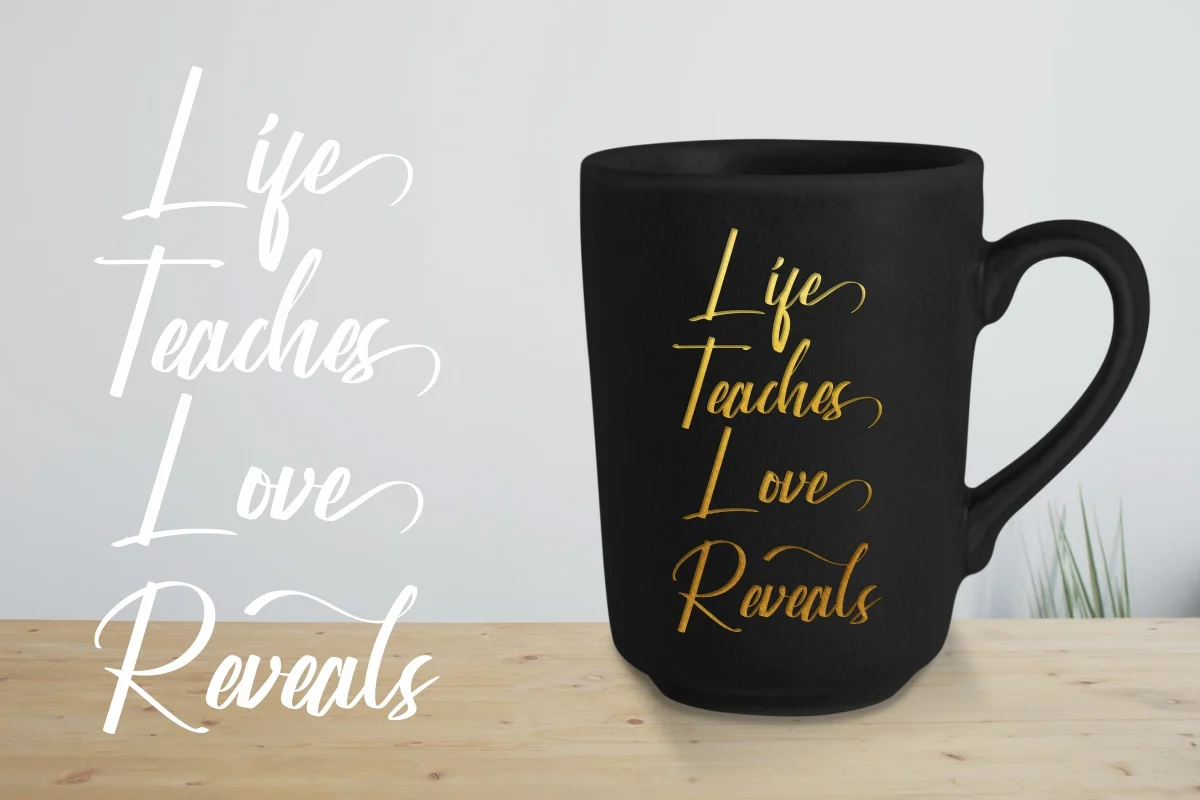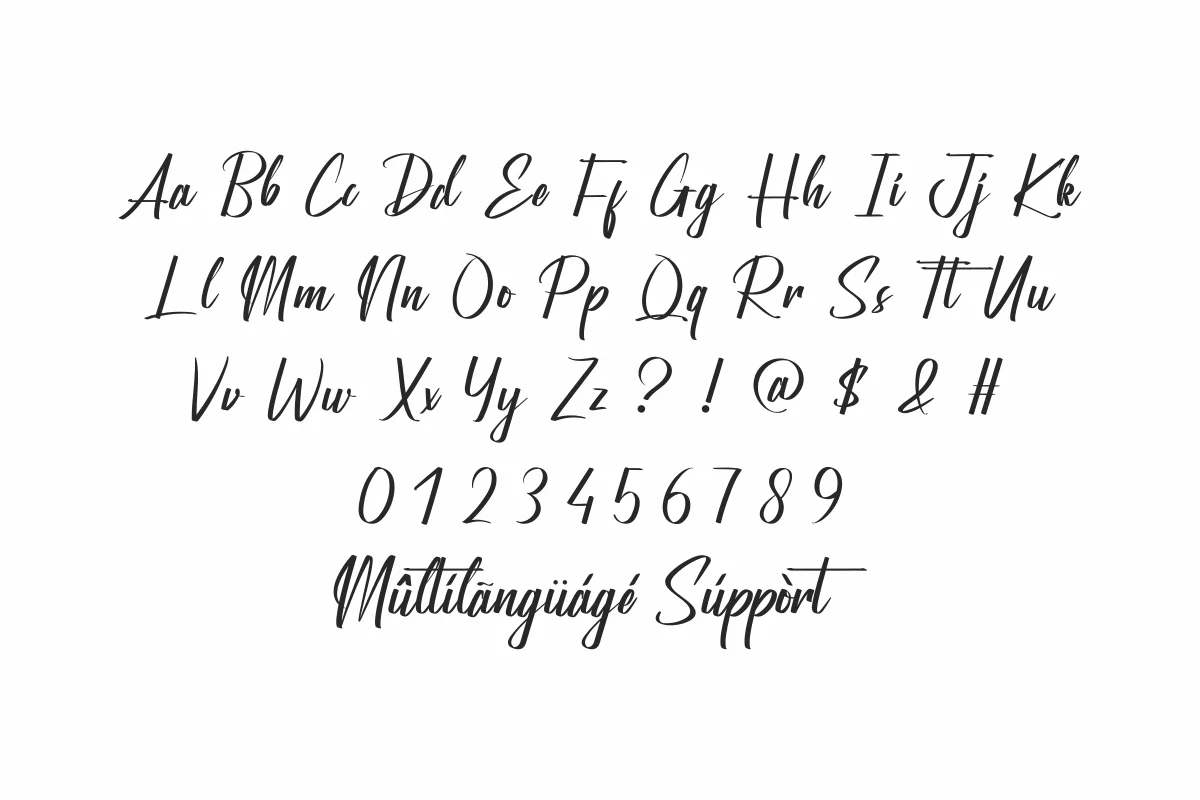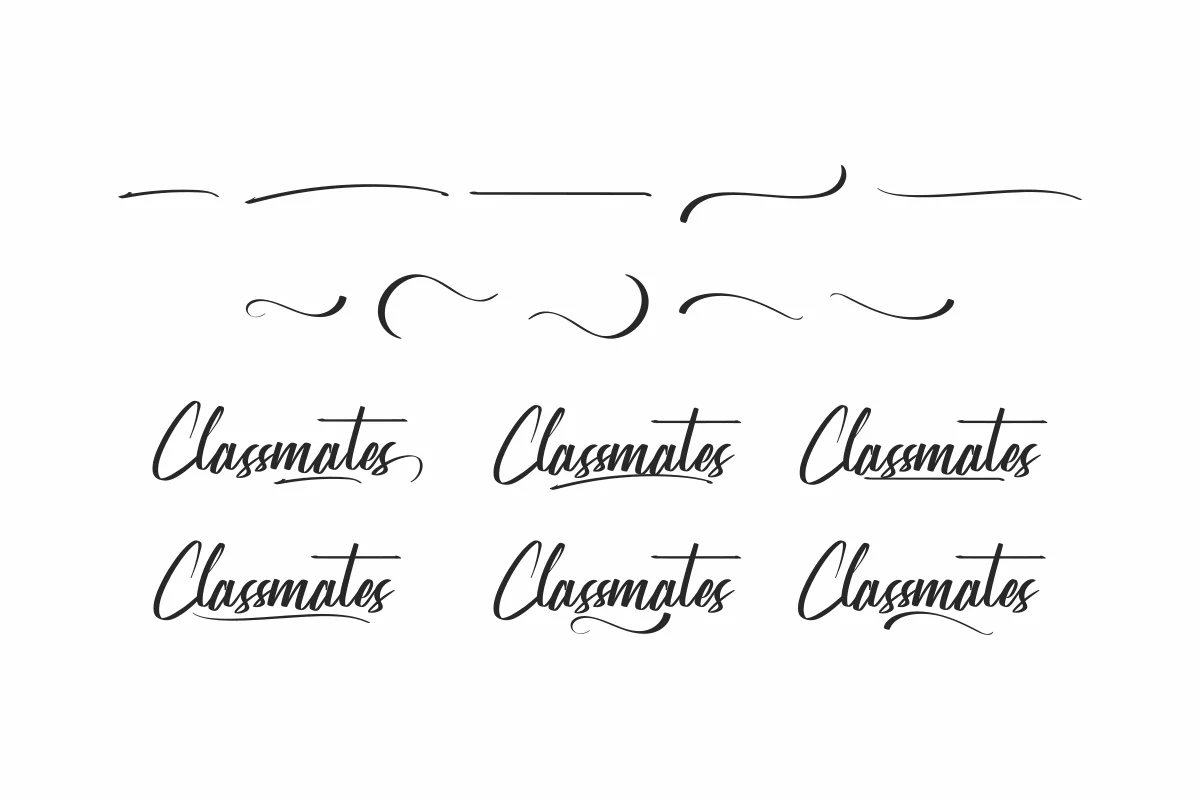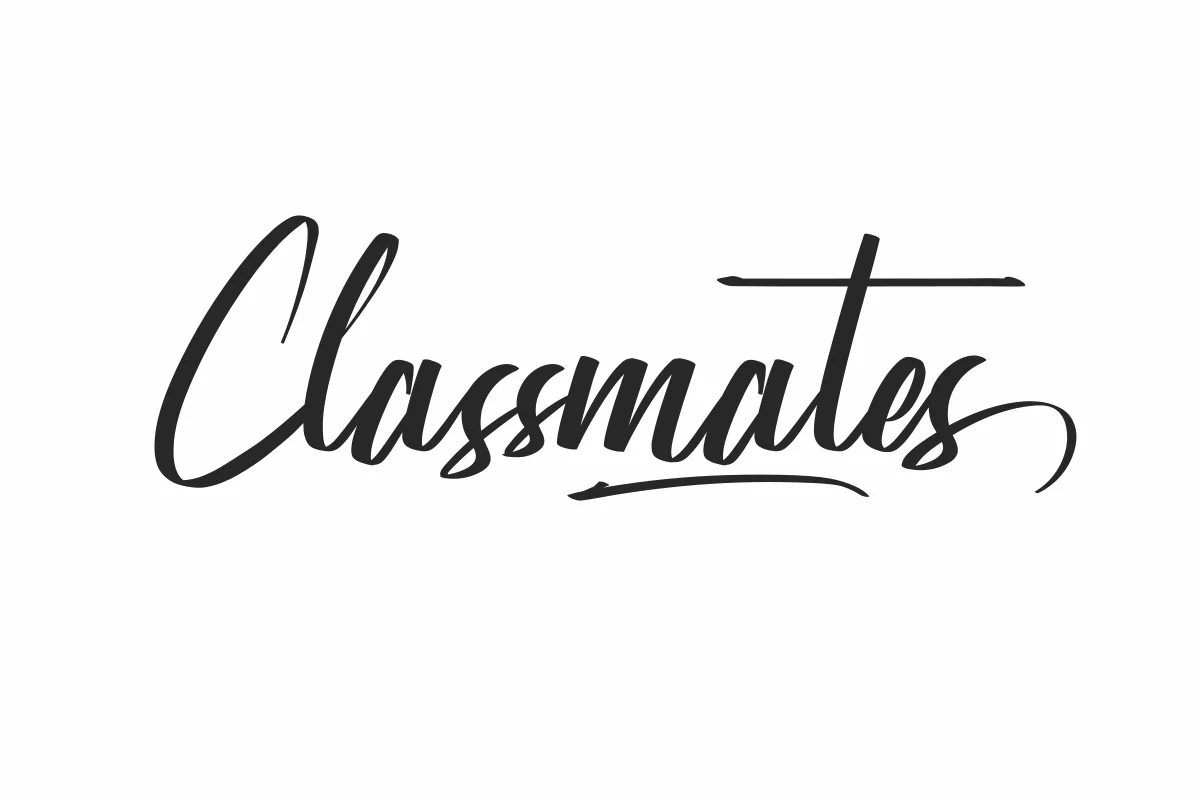
Classmates Font is an original brush calligraphy font by NihStudio since 2020. It is a beautiful brush font, Made in Indonesia. Download Now
Classmates is a brush calligraphy font. Made in Indonesia 2020 by NihStudio InHouse Font Designer : Widiyanti and Suci. On the package you will get :
Classmates will be awesome for any projects (require extended license) including : branding, logo, stationery, business card, signage, flyer, brochure etc. The theme style of the font is elegant, luxury, glamour, gold, vintage, stylish, sophisticated and classic brush style. The font will be match for this typeface: wedding, events, real estate, architect, law firm, florist, gardening, makeup artist, travel, hotel, musician etc